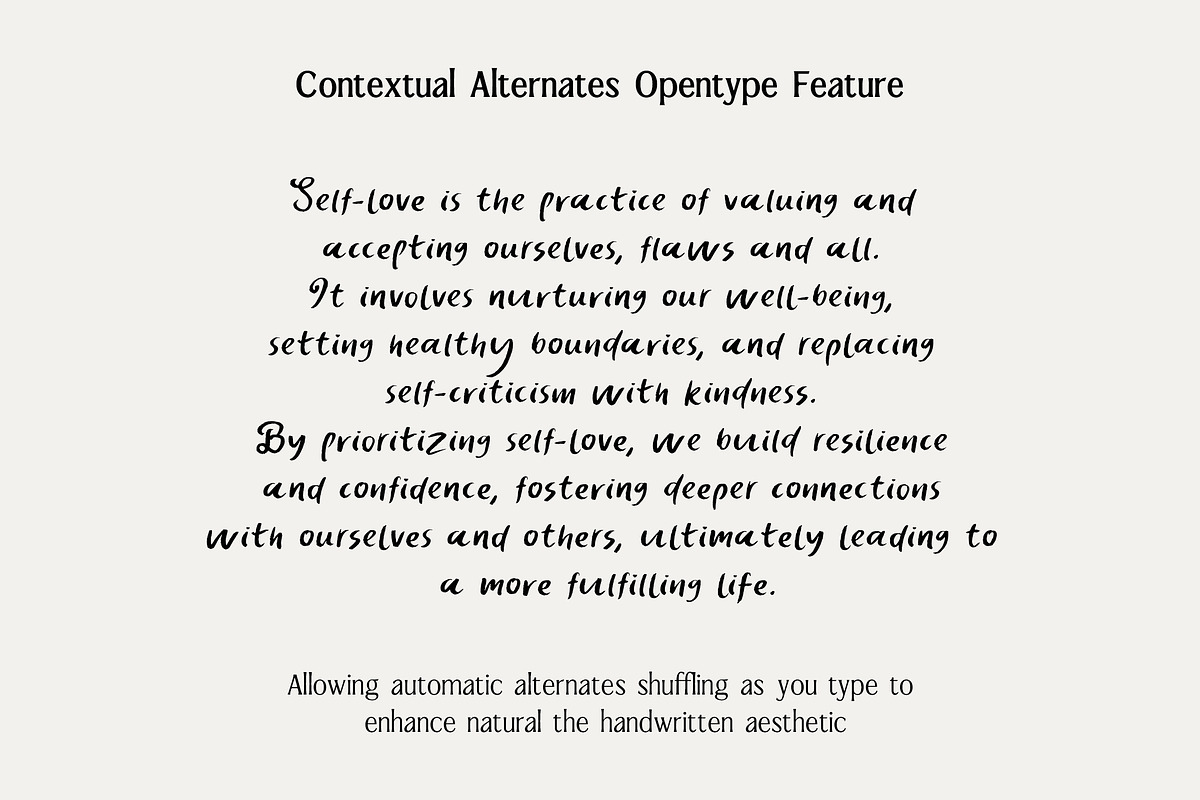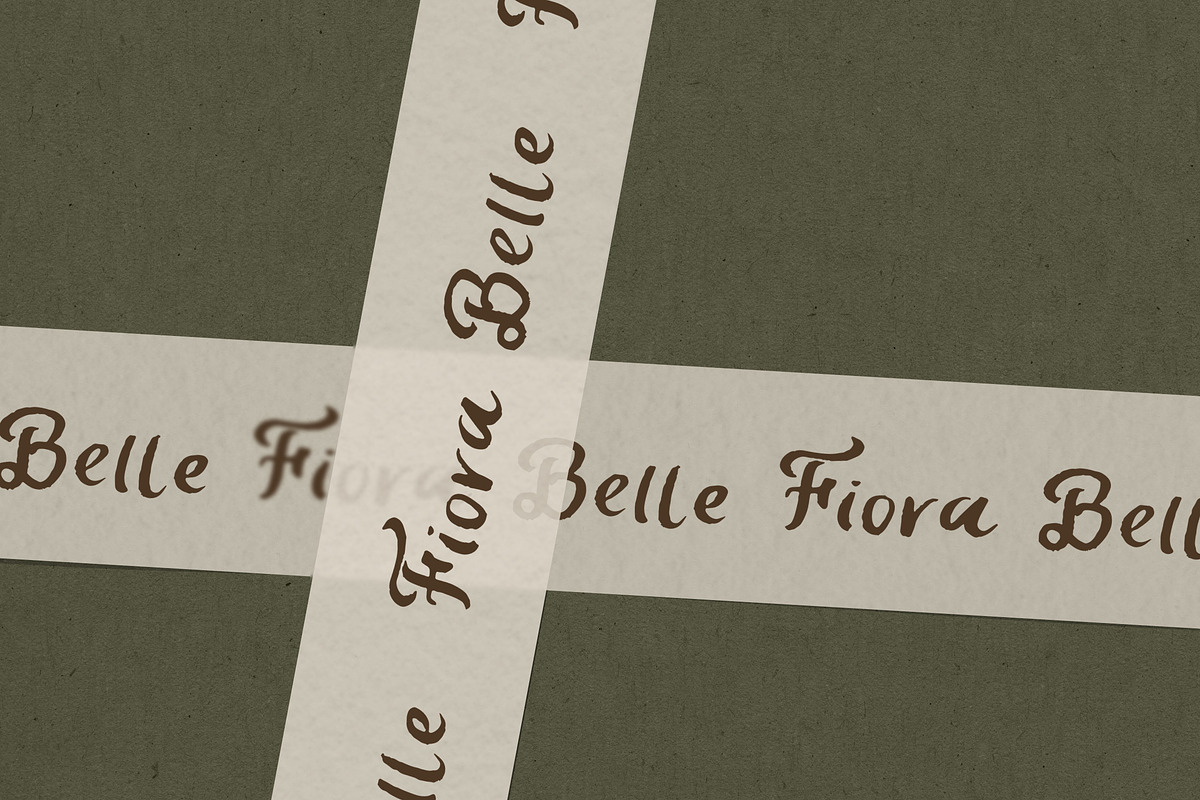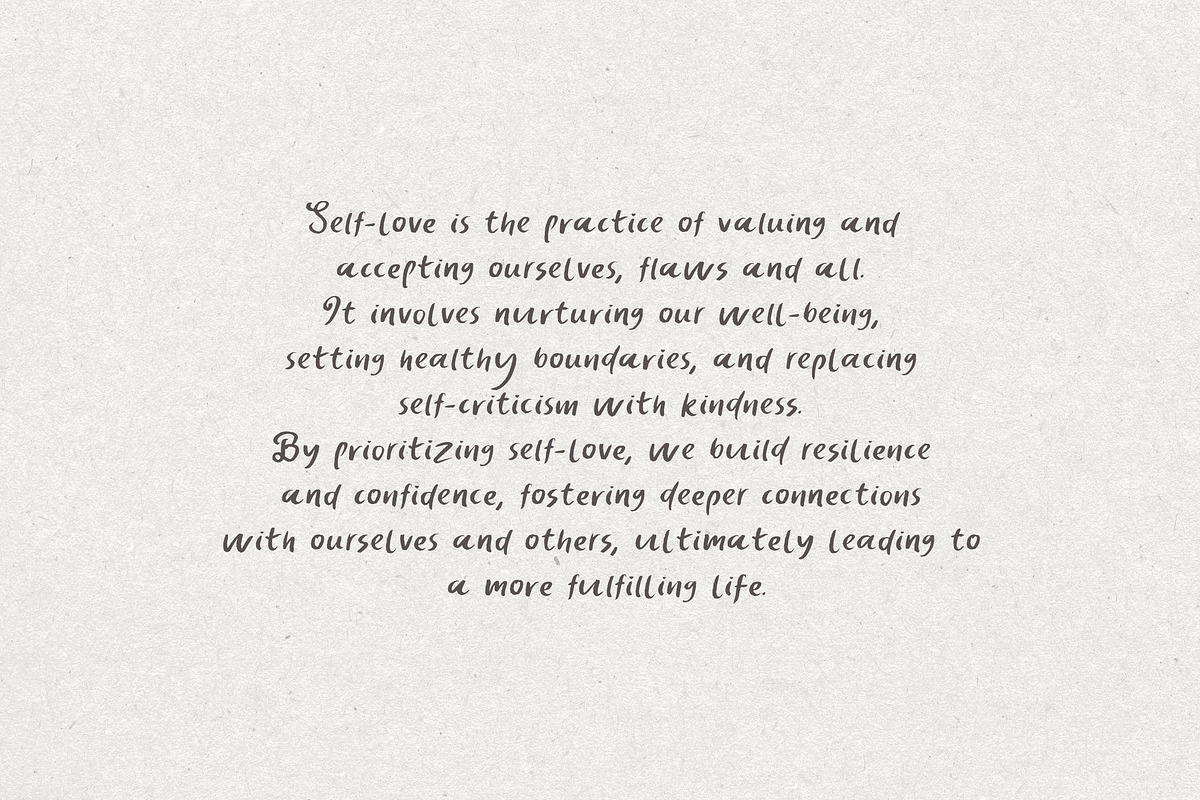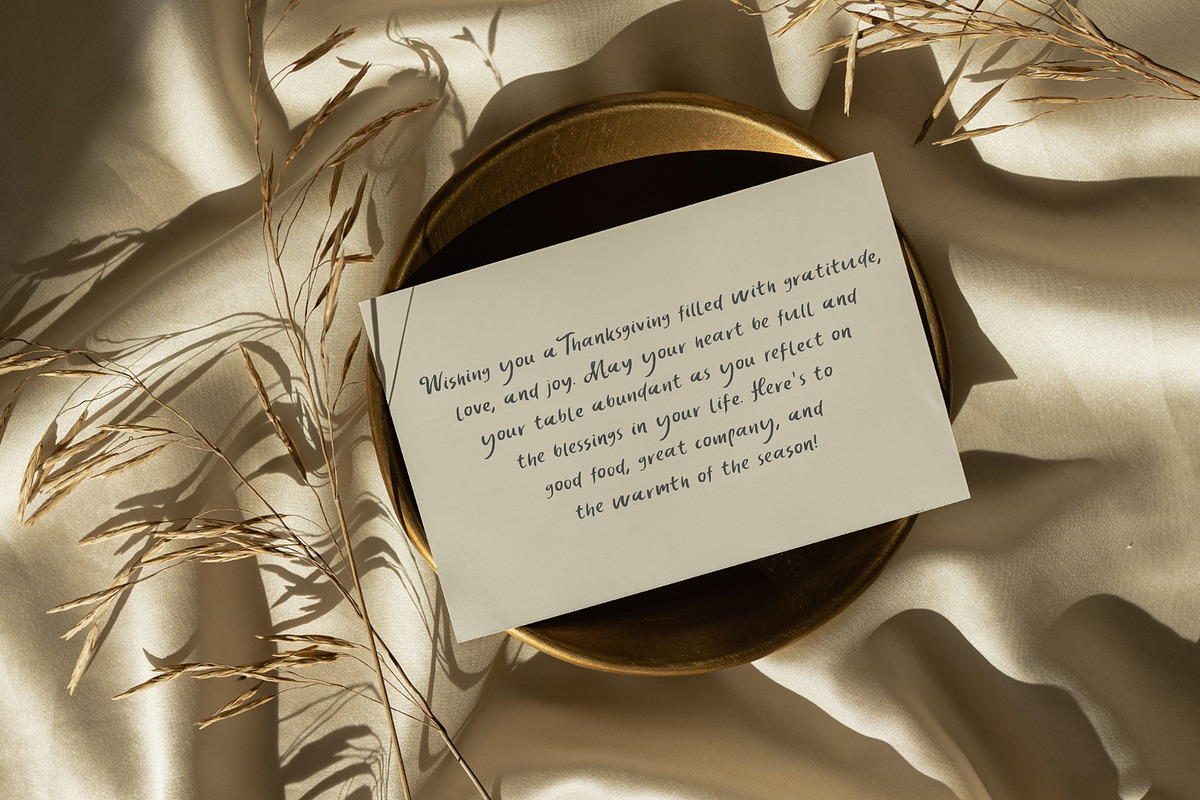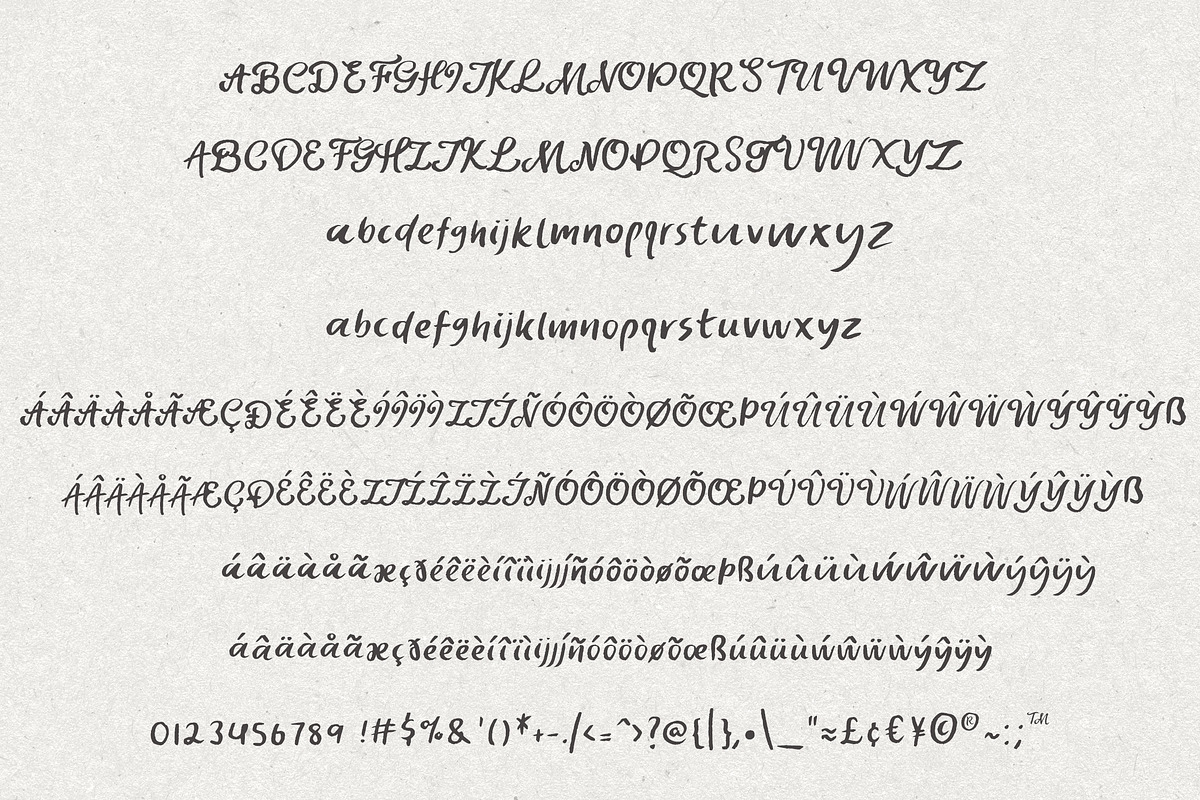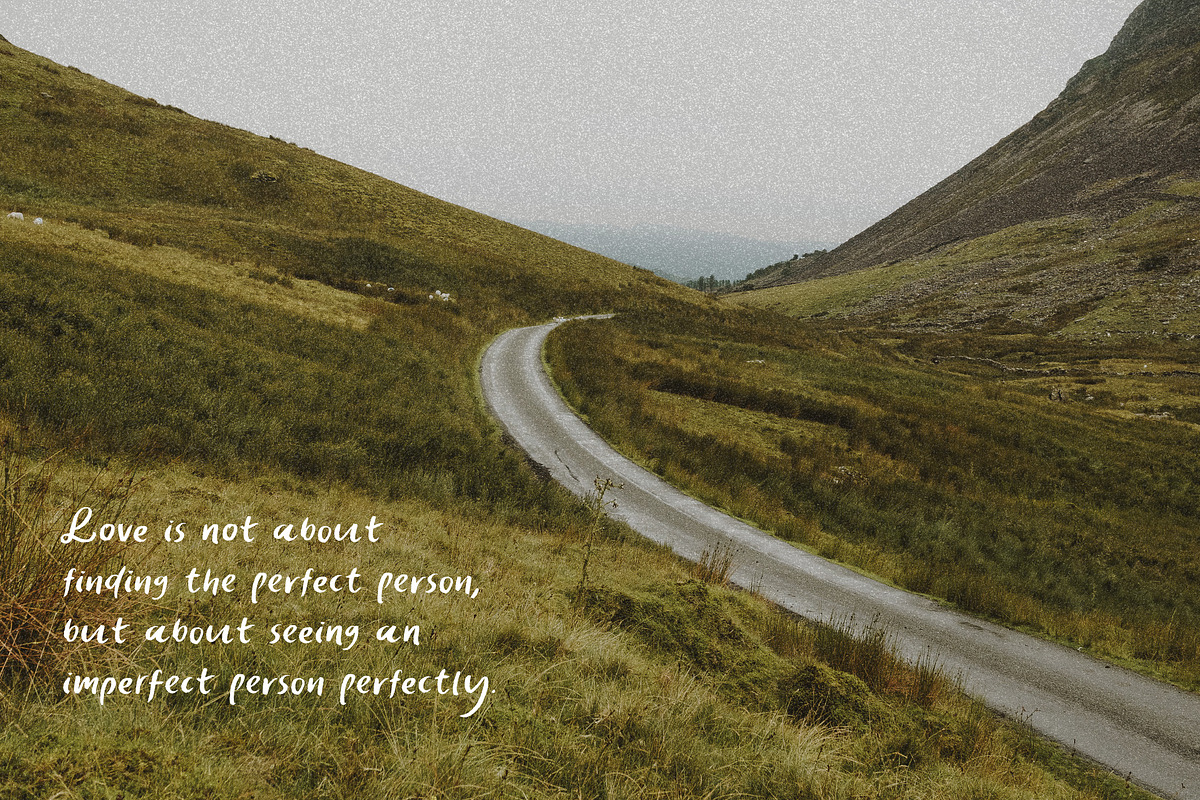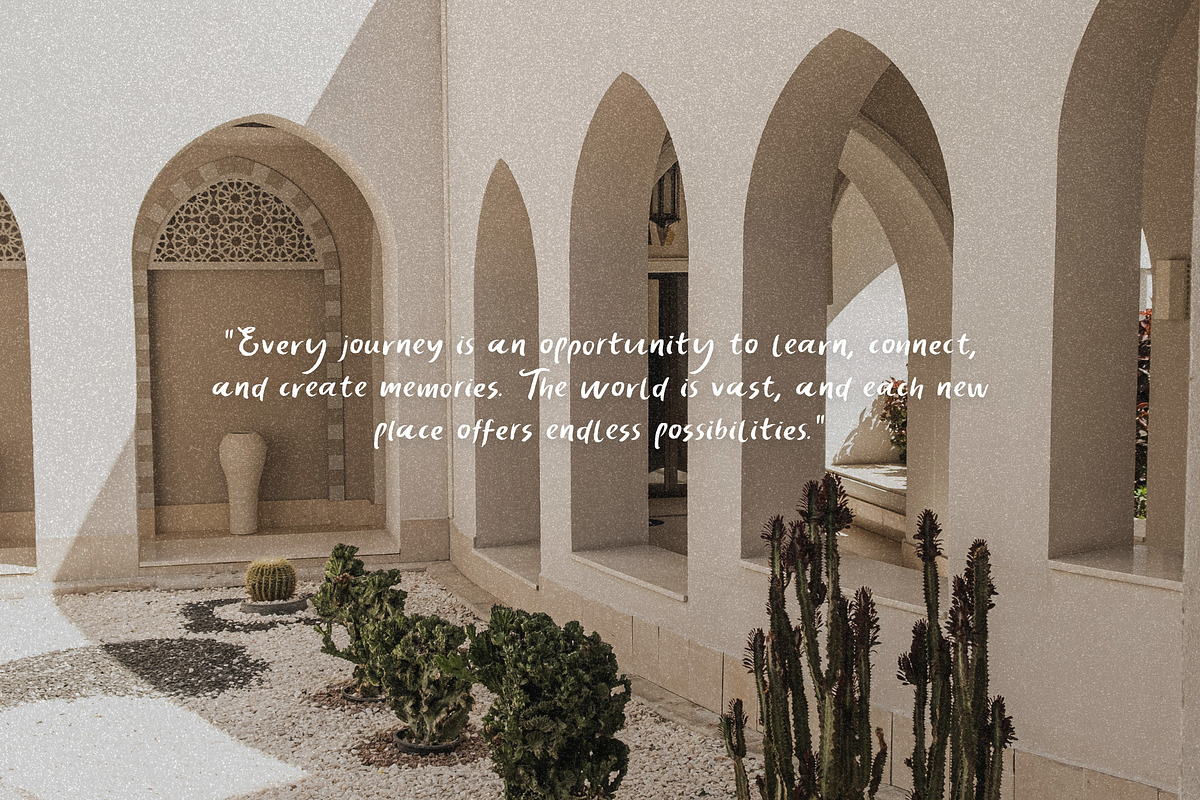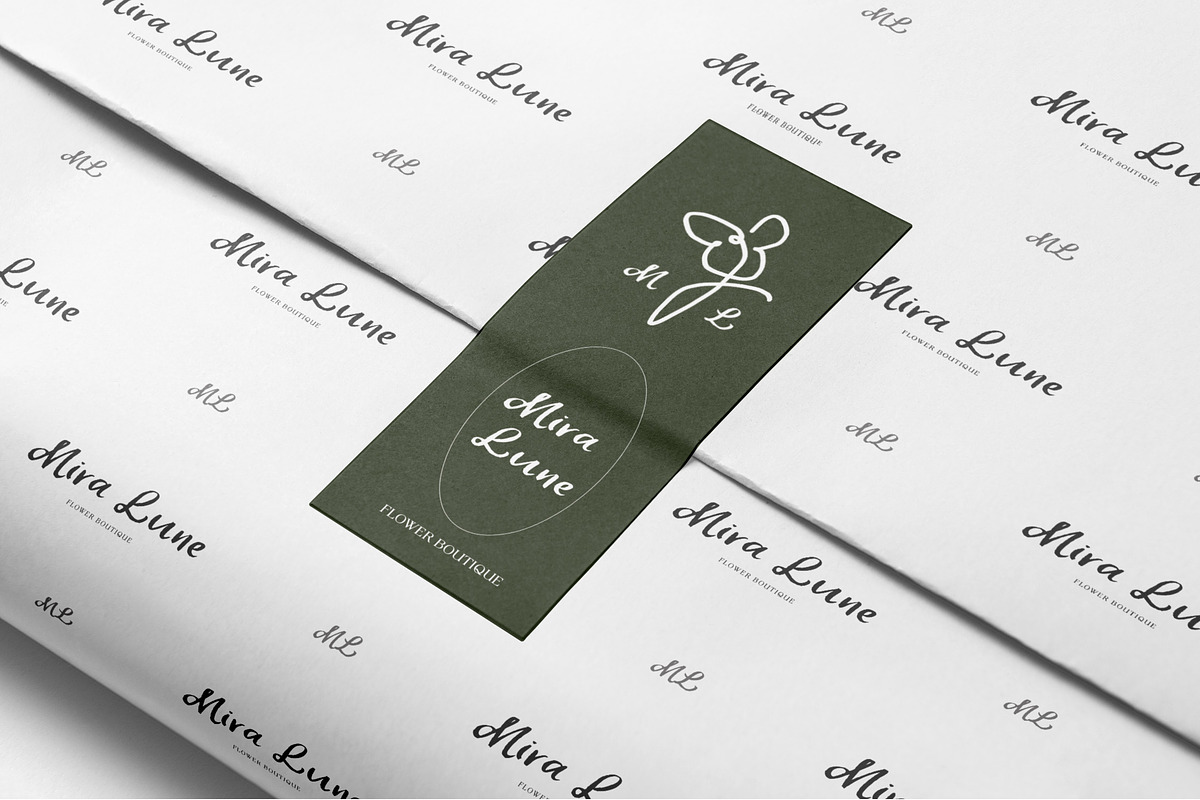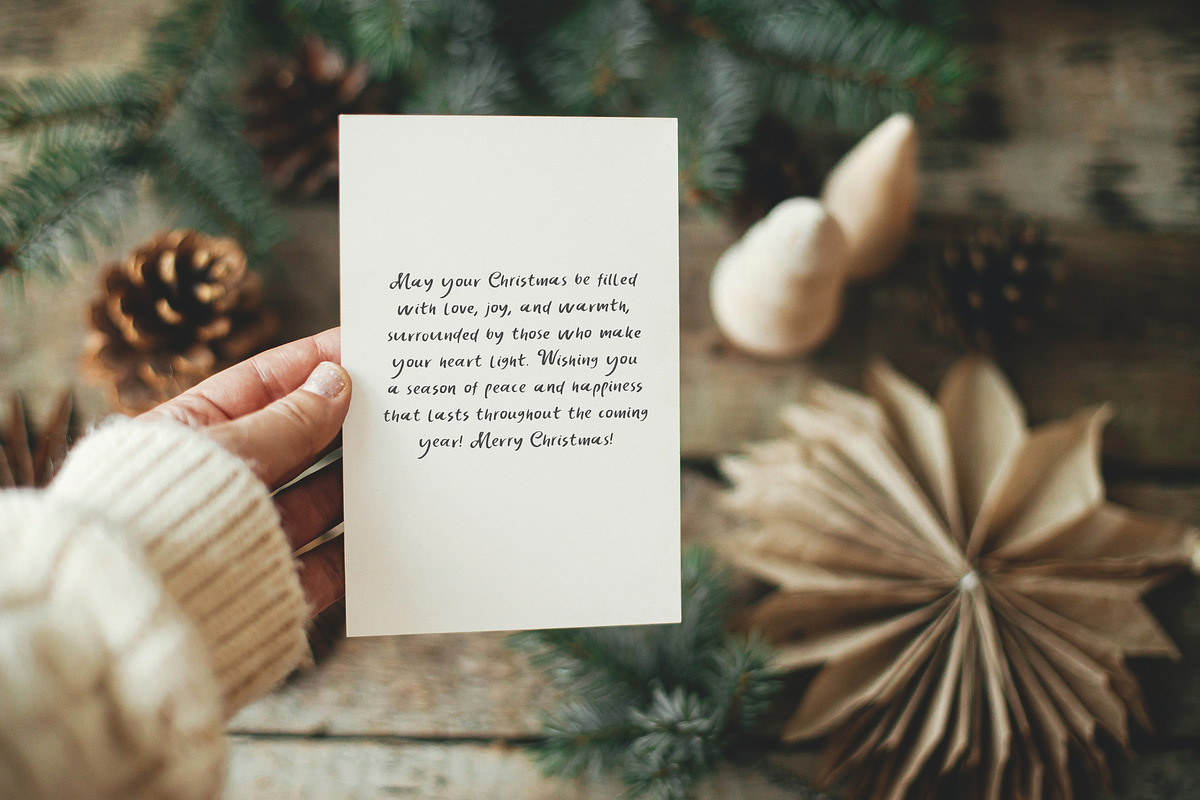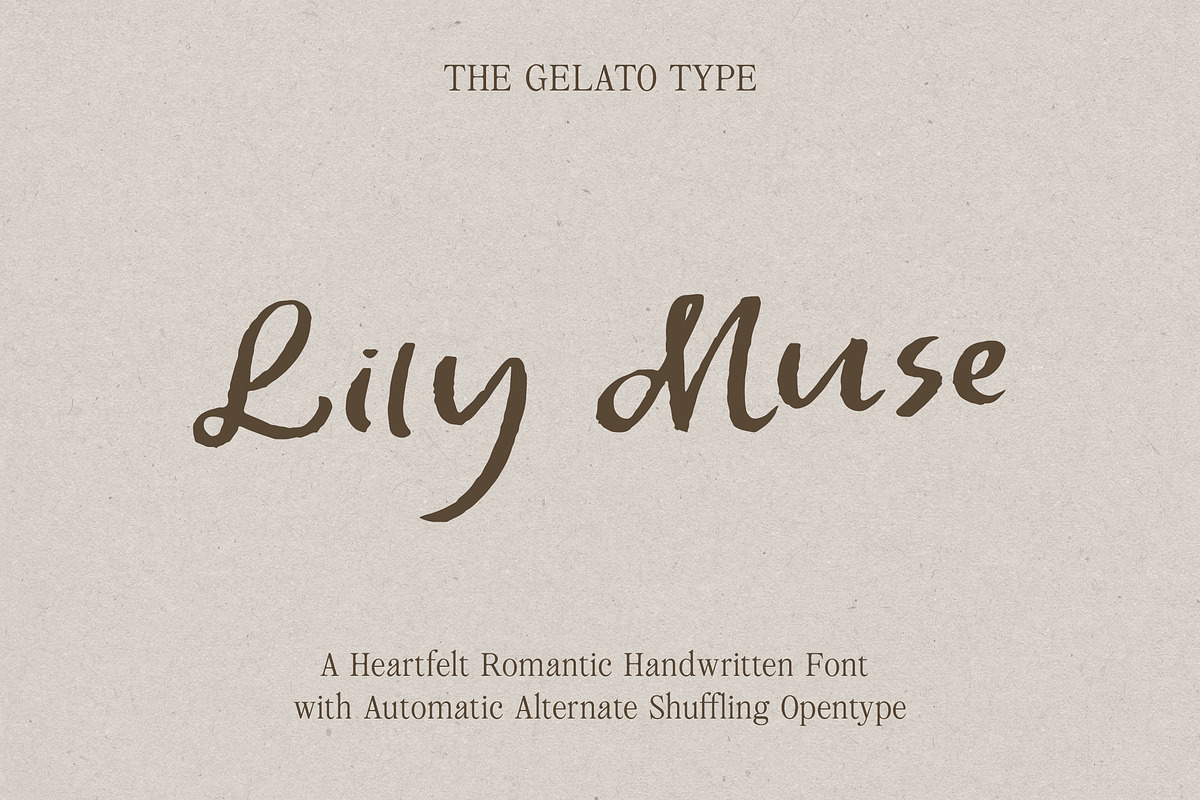
Lily Muse Handwritten Font
Introducing Lily Muse – The Heartfelt Romantic Handwritten Font
Infuse your projects with the elegance and charm of Lily Muse, a romantic handwritten font designed to capture the essence of love in every stroke. Whether you're creating wedding invitations, personal messages, branding, or heartfelt designs, Lily Muse brings a timeless, artistic flair that speaks directly to the heart.
- Romantic Handwritten Style: Lily Muse is a beautifully crafted font that embraces the perfect-imperfect touch, mirroring the grace of authentic handwritten calligraphy. It brings a personal, heartfelt touch to every word.
- Exceptional Readability: Despite its decorative style, Lily Muse maintains excellent readability, making it ideal for both print and digital applications.
- Multilingual Support: With comprehensive language support, Lily Muse ensures that your love can be shared across borders and cultures with ease.
- Two Sets of Alternates: Unlock creative possibilities with 2 distinct sets of alternate characters. Mix and match them to add variety and personality to your designs.
- Contextual Alternates (OpenType): Lily Muse features automatic contextual alternates, an OpenType feature that allows for seamless alternate shuffling as you type—creating a natural, handwritten flow. This ensures that each word connects beautifully and organically, enhancing the overall feel of your text.
Whether you’re designing a wedding invitation, a romantic quote, or a creative logo, Lily Muse elevates every project with elegance and emotion. Perfect for designers and creatives who want their words to be as beautiful as the feelings they convey.
Let your designs bloom with the beauty of handwritten love!